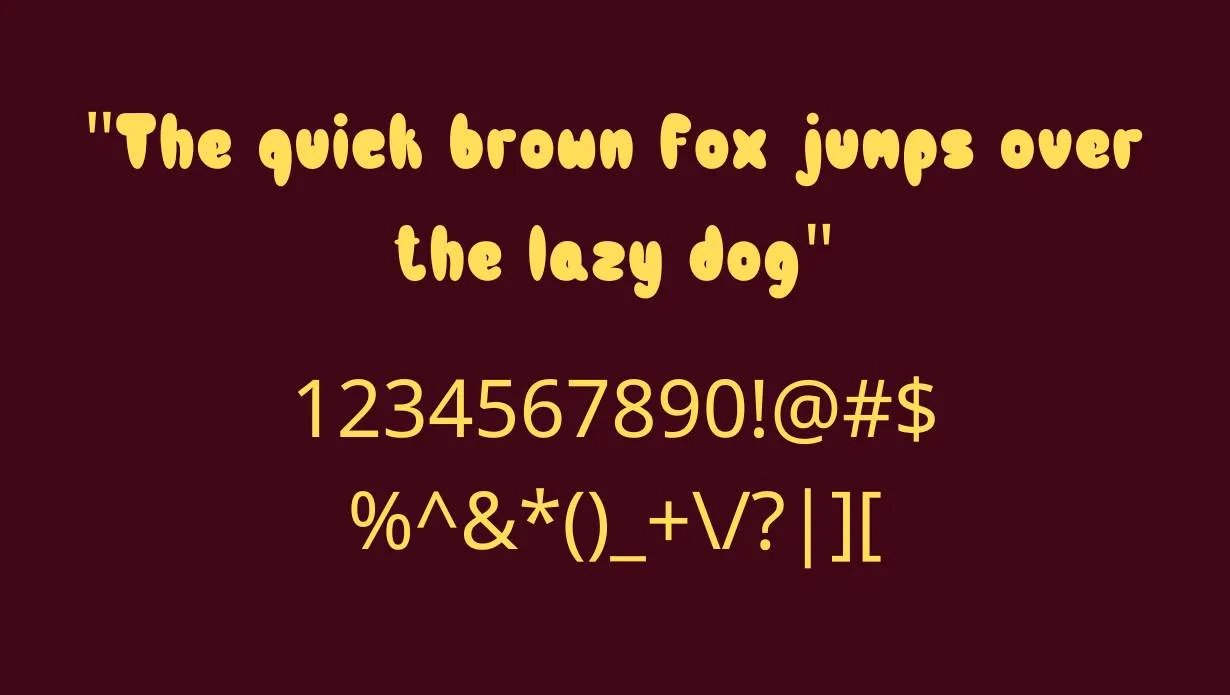
The Lightbulb Font is perfect for creative projects or anything that requires an innovative touch. Its unique characters add a sense of inspiration and creativity to your designs.